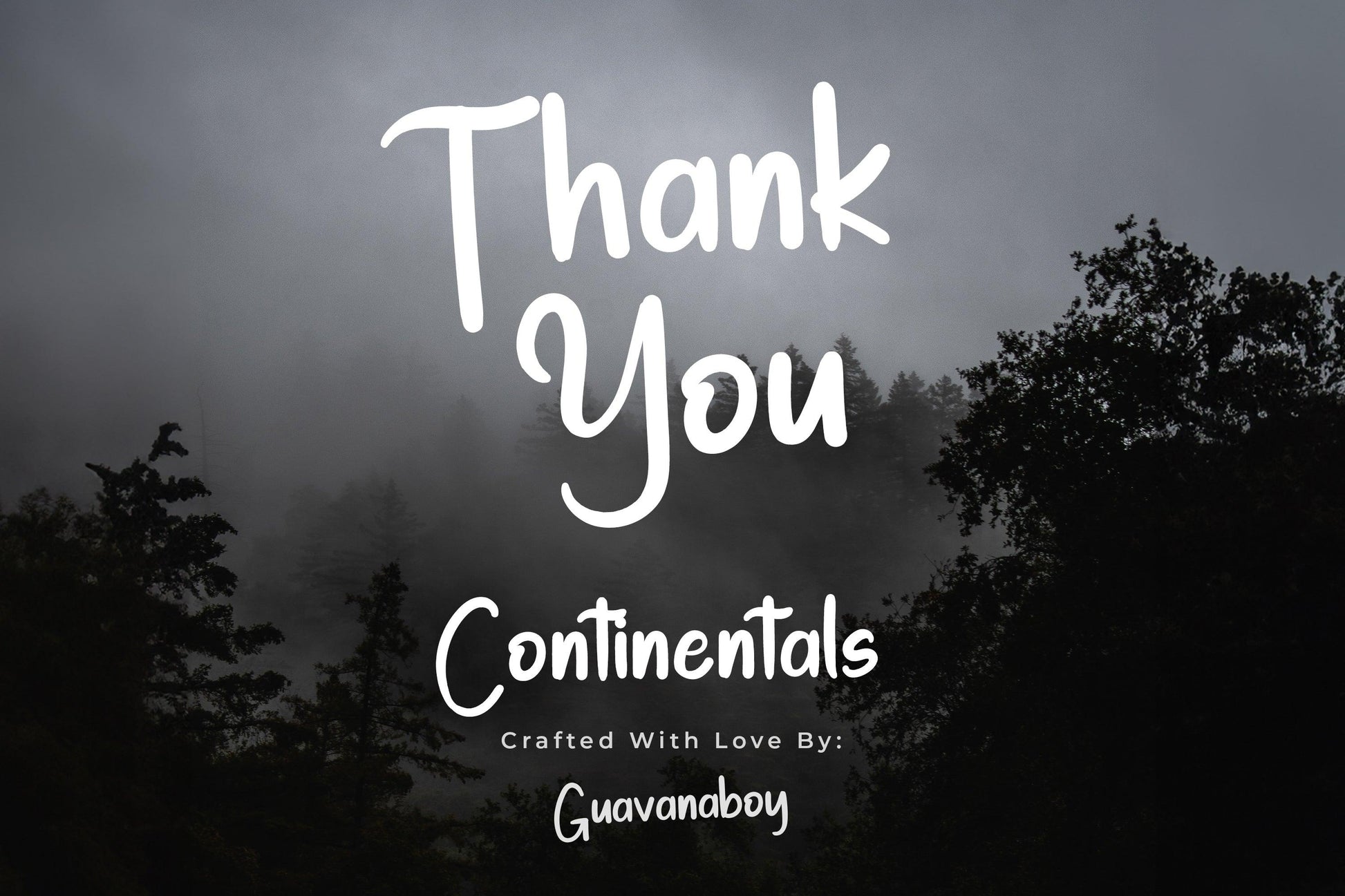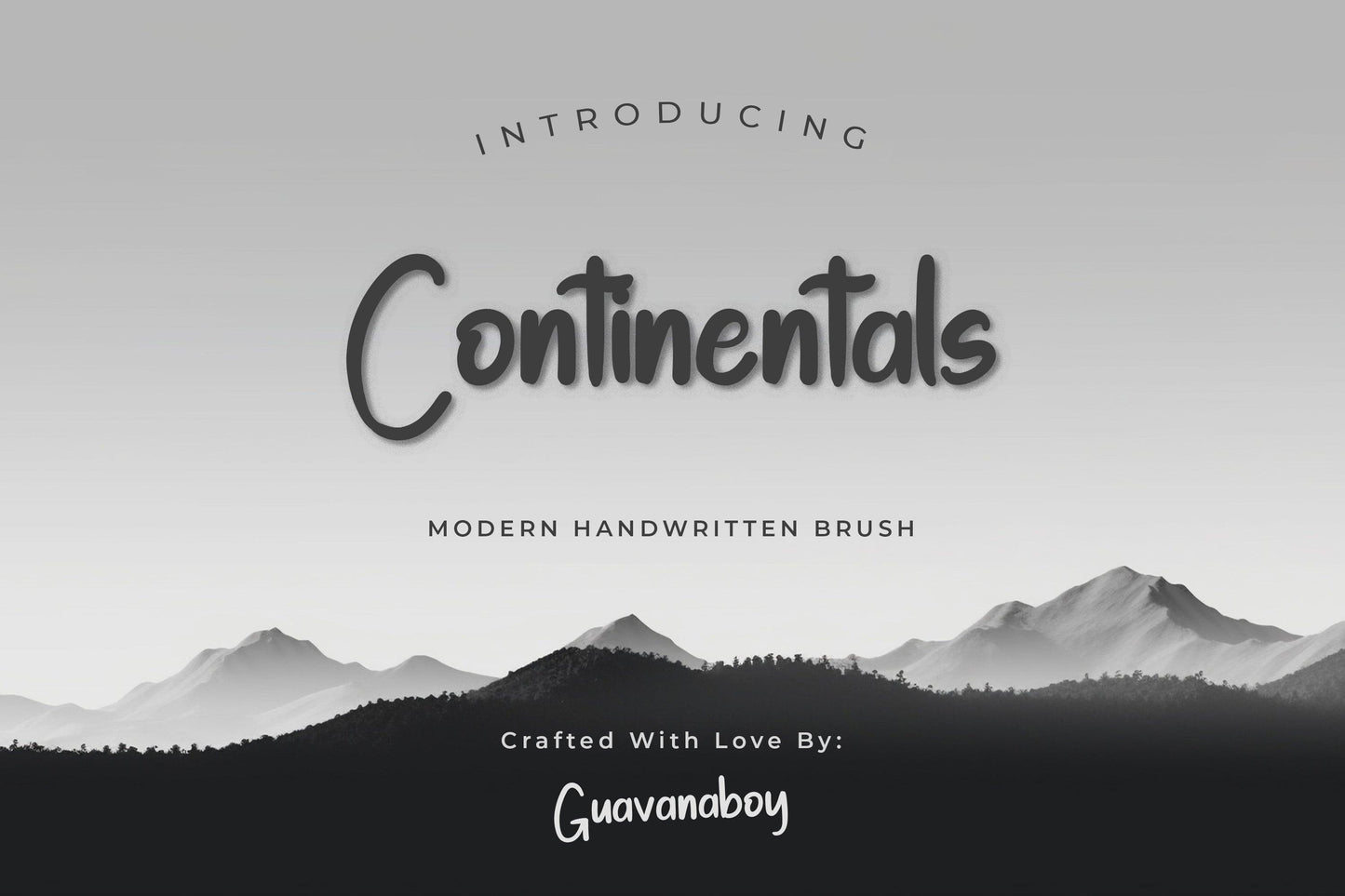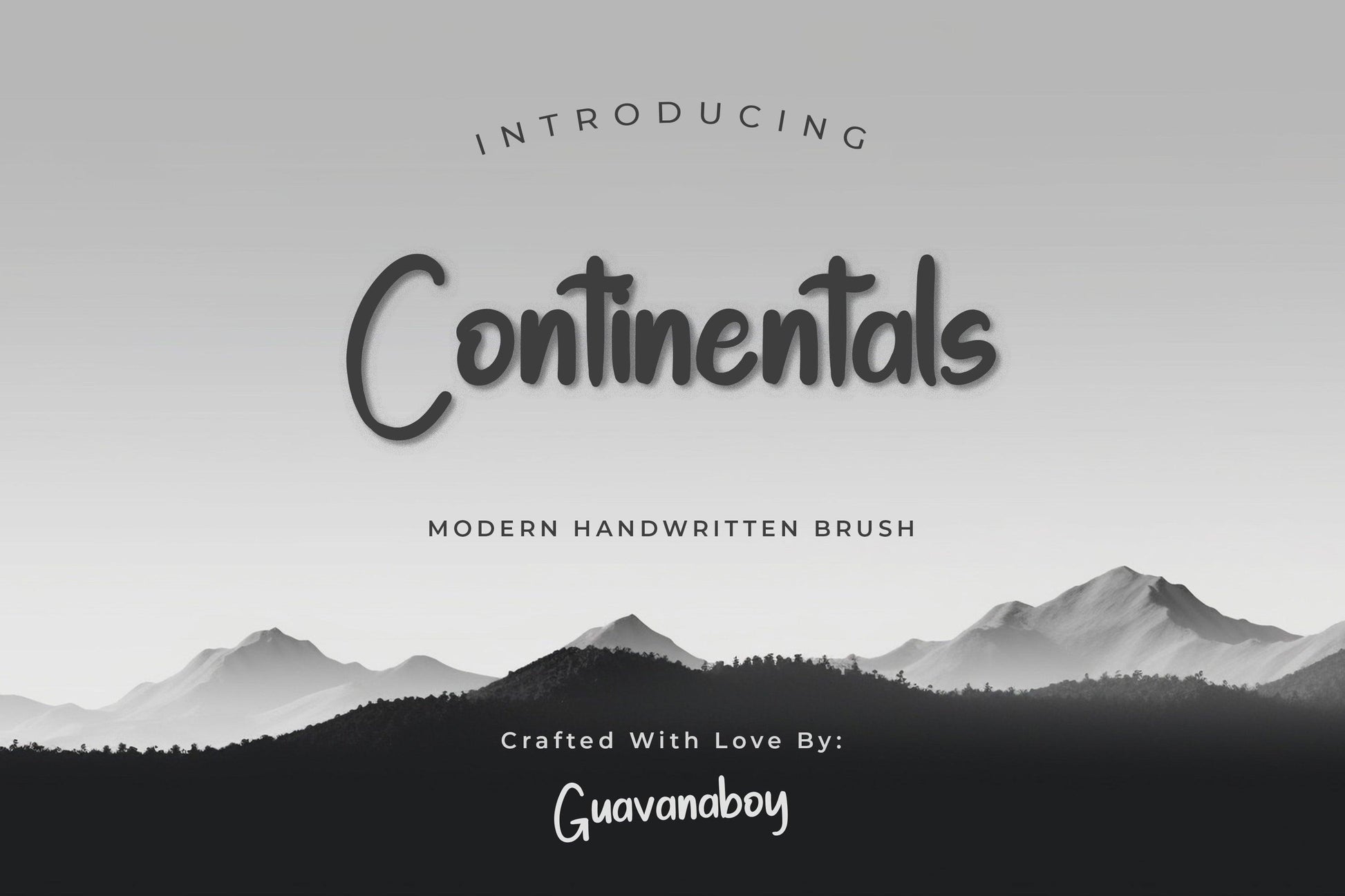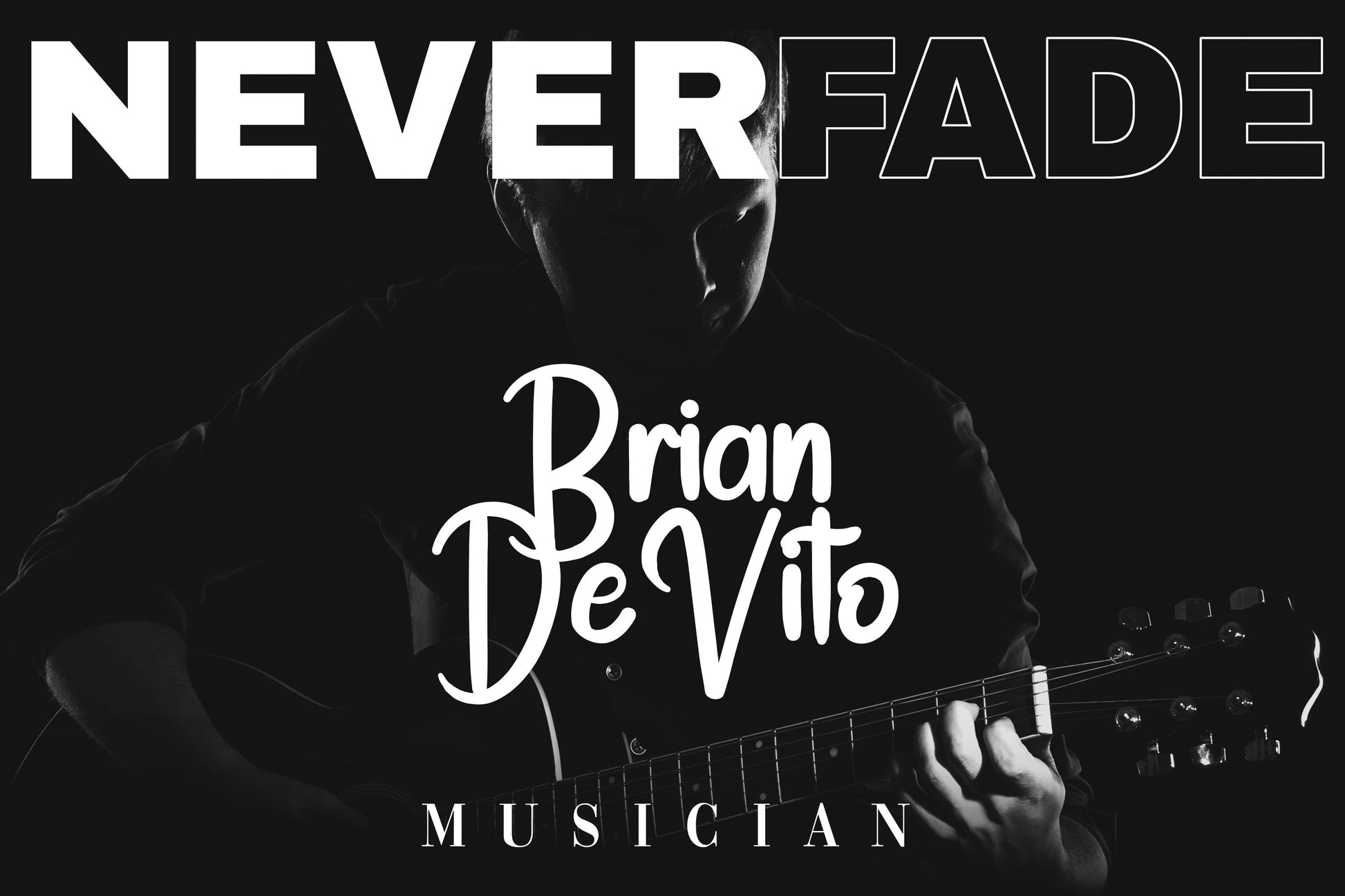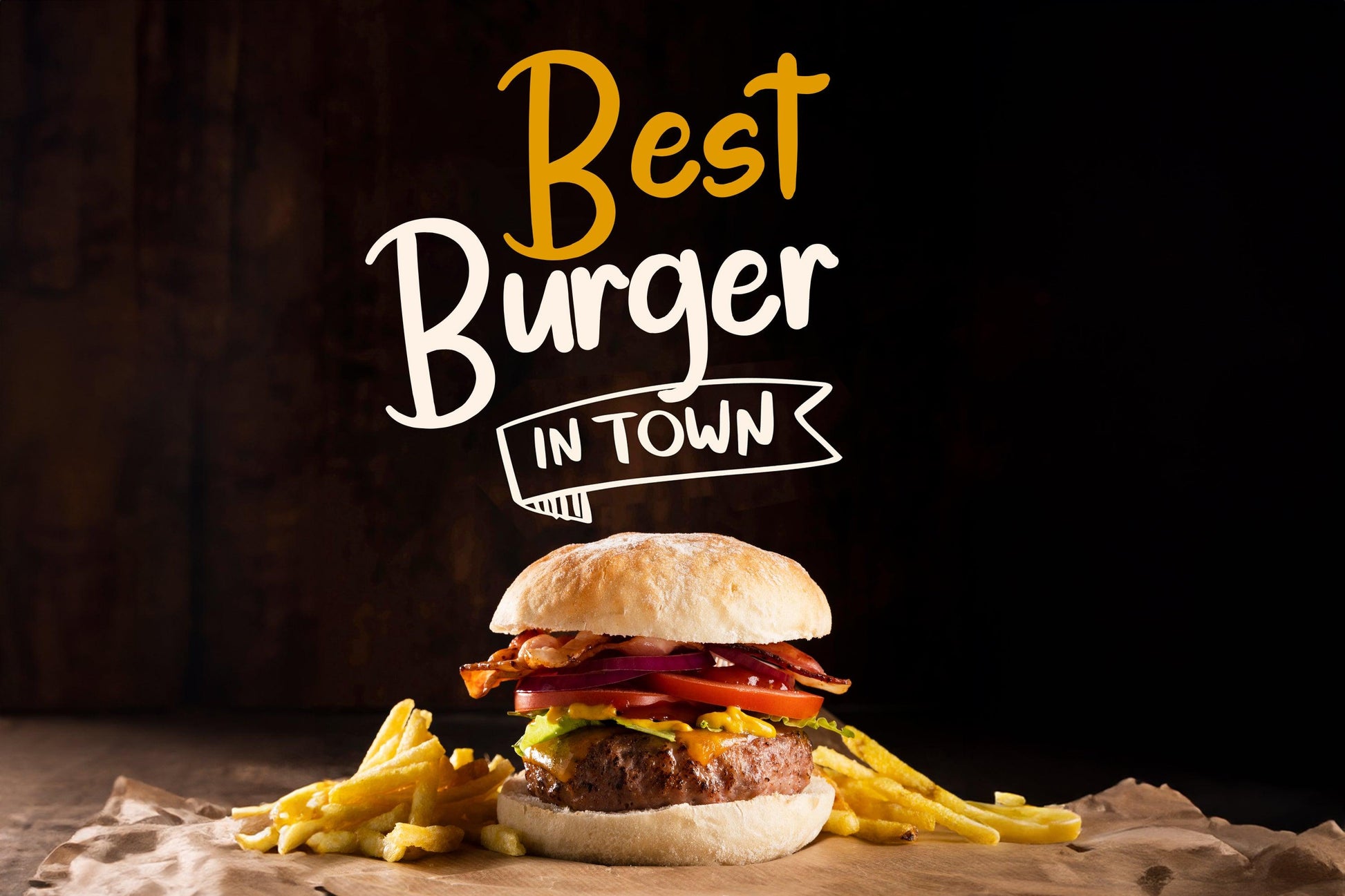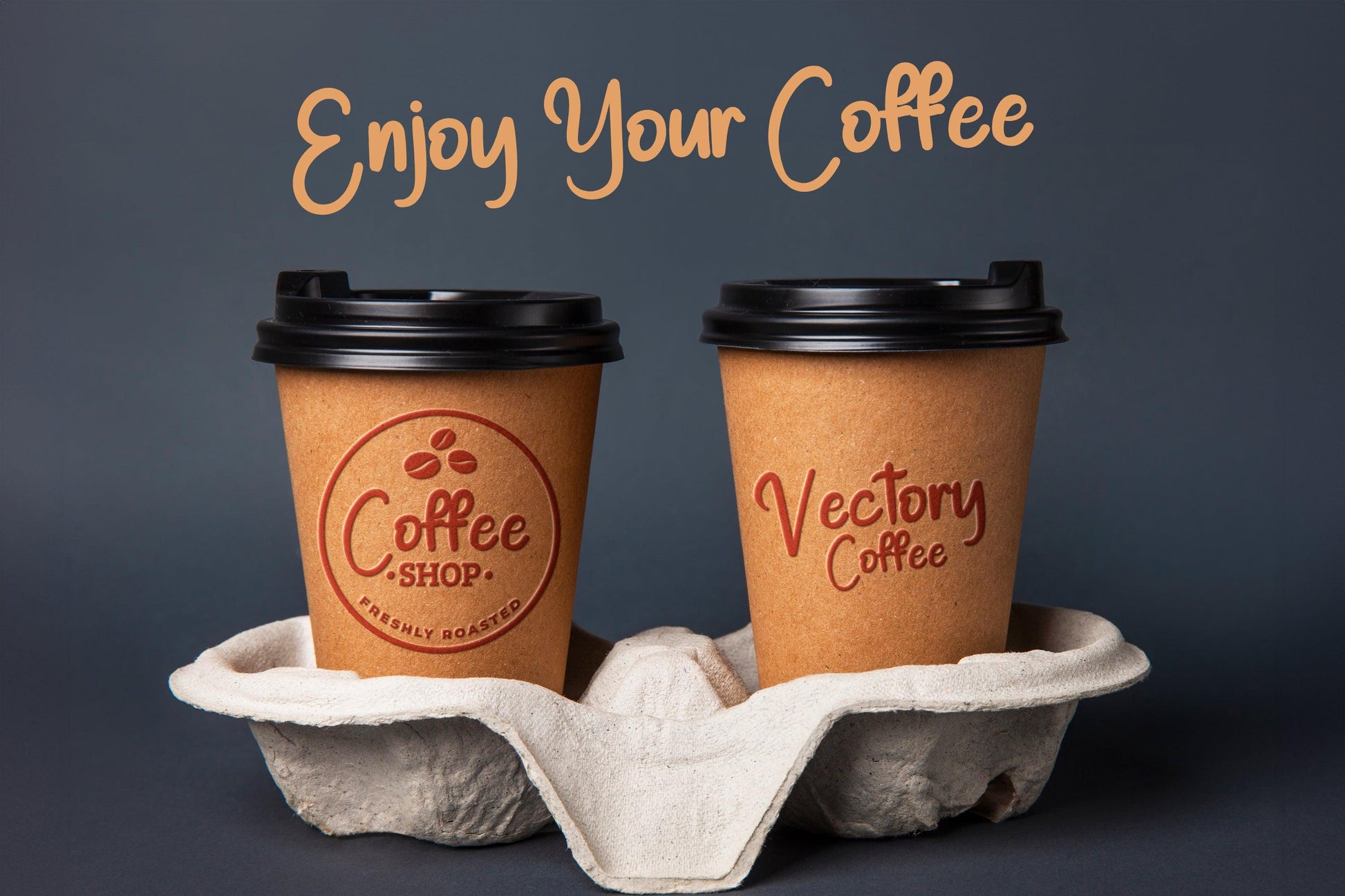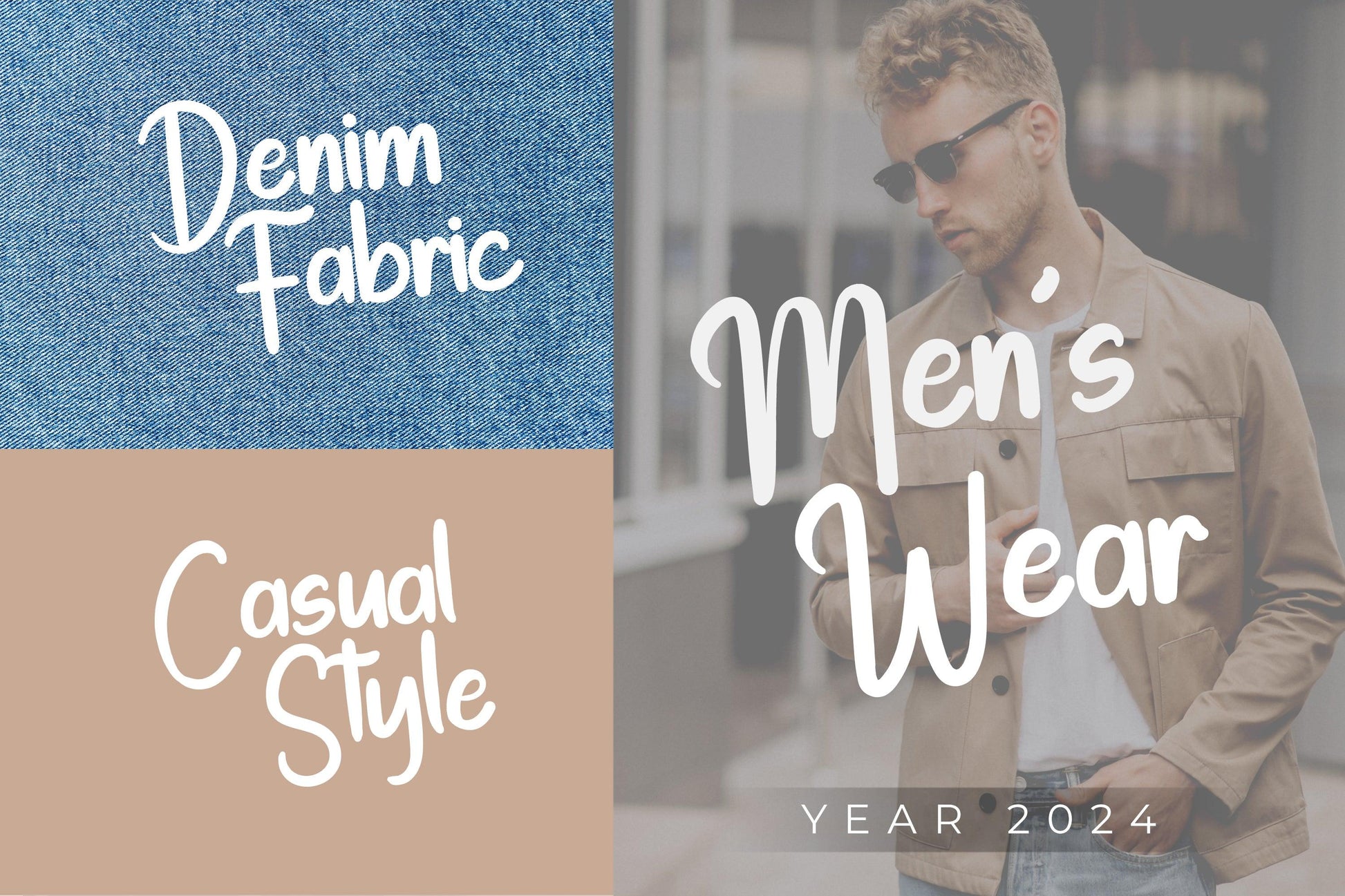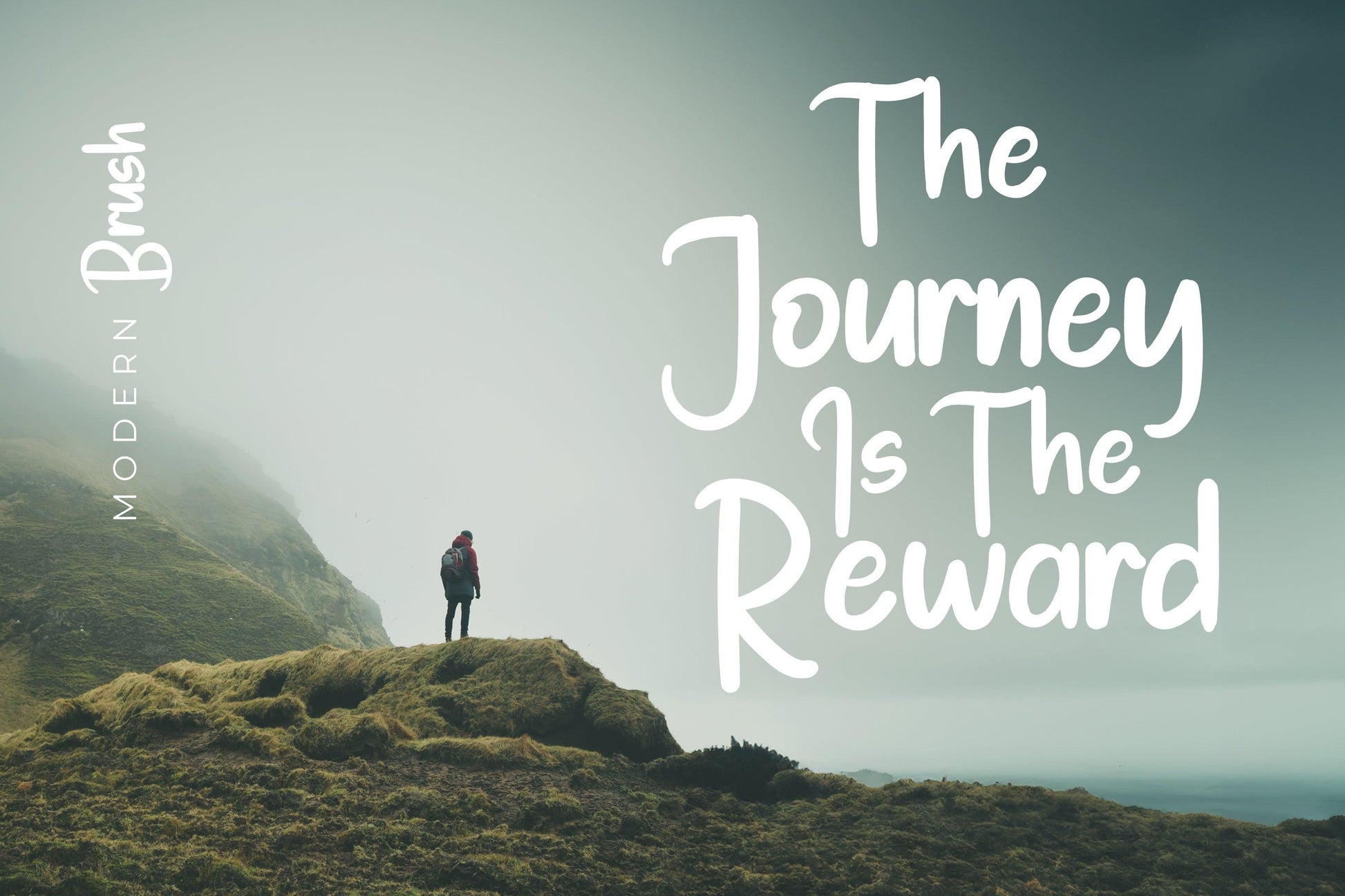
Continentals - Modern Handwritten Brush Font
Introducing Continentals, a bold and dynamic Modern Handwritten Brush Font designed to bring personality and energy to your creative projects. With its natural brush strokes and stylish flair, Continentals is perfect for branding, social media posts, logos, packaging, invitations, and more. This versatile font combines the raw, handcrafted look of a brush font with the elegance of modern design, making it a standout choice for any designer or creator.